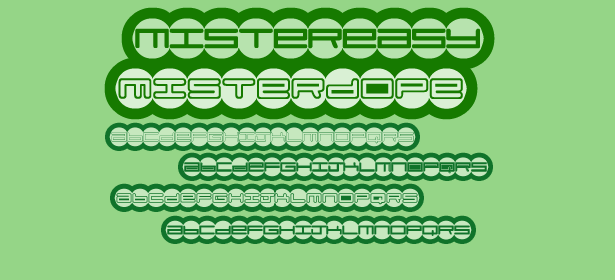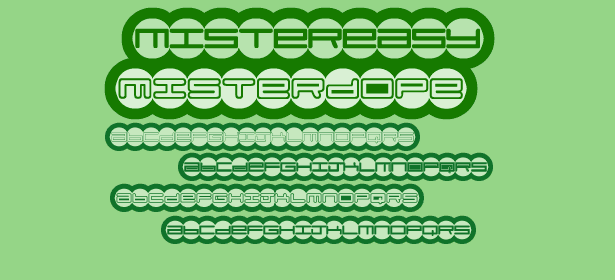
Once again, I have made a futuristic font. As you can see, I made four of them. Some of them are capital letters, some are lowercase. You can mix and match 'em while you're typing. To make the circles close, simply use the open and close brackets. This is a font that looks decent at headliner sizes, so if you're planning on using it for sizes under 75 points, don't come back to me with some jibber-jabber when it looks crappy. Its a crappy font. Who gives a crap?